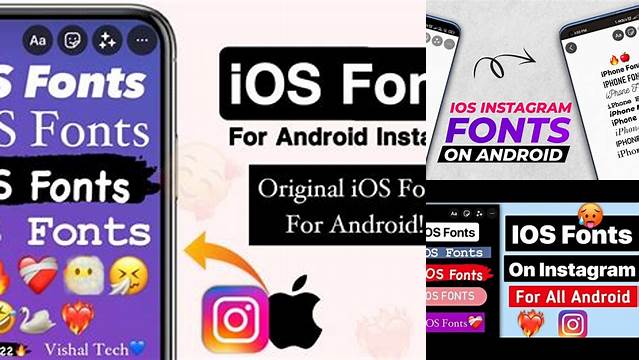
IOS Instagram Fonts: TTF Guide
Understanding iOS Instagram Fonts and TTF Files
Hey guys, ever scrolled through Instagram and wondered how some people get those super cool, unique fonts on their stories and posts? It’s like magic, right? Well, it’s not exactly magic, but it involves understanding how fonts work, especially when you’re trying to get creative on your iOS device. The main keyword here is iOS Instagram fonts TTF. We're going to dive deep into what that means, why it matters, and how you can leverage it to make your Instagram pop. TTF, or TrueType Font, is a common font format that’s been around for ages, developed by Apple and Microsoft. It’s pretty versatile and works across many platforms, including your iPhone and iPad. When we talk about iOS Instagram fonts TTF, we're essentially looking at ways to use or emulate specific TTF fonts within the Instagram app on your Apple devices. Instagram itself has a limited set of fonts you can use directly in the app. However, there are workarounds and methods to incorporate custom fonts, and understanding TTF is key to unlocking those possibilities. This guide will break down the jargon, explain the limitations, and show you the coolest ways to elevate your Instagram game with custom typography. So, buckle up, because we're about to make your feed look absolutely stunning!
Why Custom iOS Instagram Fonts Matter for Branding
Alright, let's talk branding, guys. If you’re running a business, a personal brand, or just trying to make a statement on Instagram, your visual identity is everything. And guess what? iOS Instagram fonts TTF play a surprisingly significant role in that. Think about your favorite brands; they often have a very distinct visual style, and their font choice is a huge part of that recognition. Using custom fonts that align with your brand’s personality can make your Instagram profile instantly recognizable and professional. It creates a cohesive look and feel across all your content, from your bio to your stories and feed posts. For example, a luxury brand might opt for elegant serif fonts, while a playful, quirky brand might go for something more stylized and handwritten. Instagram's native font options are pretty basic, and while they work, they don't always scream you. When you can integrate iOS Instagram fonts TTF options, you're essentially giving your brand a unique voice that stands out from the crowd. It’s about more than just aesthetics; it’s about communicating your brand's essence without saying a word. So, investing a little time in figuring out how to use custom fonts isn't just a vanity project; it’s a smart branding strategy that can help you connect more deeply with your audience and leave a lasting impression. Let’s get into how you can achieve this.
The Nuances of TTF Fonts on iOS for Instagram
So, we’ve established that TTF files are crucial for custom fonts, but how exactly do they work with iOS Instagram fonts TTF? It’s not as simple as just downloading a TTF file and expecting it to appear as an option within the Instagram app’s story editor. iOS has a specific way of handling fonts, and Instagram, being an app, largely relies on the system's font management. Generally, you can install TTF fonts on your iPhone or iPad, making them available system-wide. This means other apps can use them. However, Instagram’s story editor, or its text tools for posts, often has a curated list of fonts that the developers have chosen to include. This is a key limitation. What we're often doing when we talk about using custom fonts on Instagram is actually using a third-party app or a web-based tool to create text with our desired font, and then saving that as an image or sticker to upload to Instagram. The TTF file itself isn't directly selectable within the Instagram app’s text tool. Instead, you might use the TTF on your device to create graphics in another app, like Procreate or Canva, and then share those graphics to Instagram. Understanding this distinction is super important for managing expectations. We're not magically adding TTF options to Instagram's built-in editor, but rather using the TTF file as a building block in external tools to achieve the final look. This nuance is critical when you're aiming for specific iOS Instagram fonts TTF styles.
Leveraging Third-Party Apps for Custom iOS Instagram Fonts
Since Instagram’s built-in text tools are limited, the real magic for custom iOS Instagram fonts TTF often happens in third-party apps. These apps act as intermediaries, allowing you to use the TTF fonts you've installed on your device (or sometimes, fonts they provide) to create visually appealing text graphics. My favorites often include apps like Canva, Mojo, Over, or even specialized font apps. With an app like Canva, for instance, you can create a design, add text, and then choose from a vast library of fonts, including many TTF fonts you might have uploaded or installed. You design your text overlay, save it as an image, and then upload that image to your Instagram story or post. Mojo is fantastic for animated stories, offering cool templates where you can often swap in custom fonts. The key here is that these apps let you design with your chosen fonts. You’re not typing directly into Instagram; you're crafting your text elements externally. This gives you so much more control over the look and feel. You can adjust spacing, size, color, and apply effects, all while using your desired iOS Instagram fonts TTF. It's a bit more work than just typing, sure, but the results are professional and totally unique. Think of these apps as your personal design studio for Instagram. Experiment with a few different ones to see which interface you like best and which offers the features you need. This is where you truly bring your custom typography vision to life for your Instagram feed.
Using Instagram's Built-in Font Options Creatively
Okay, so while we're all about diving into custom iOS Instagram fonts TTF, let's not forget that Instagram does offer a few built-in font styles for stories. Sometimes, you can get pretty creative just by using these options smartly. Think of it as working within constraints. Instagram typically offers about 5-10 different font styles that rotate or change periodically. While they might not be TTF files you downloaded yourself, they each have a distinct personality. You’ve got your classic serifs, some bold sans-serifs, a typewriter-style font, and often a more stylized script or decorative one. The trick is to use them strategically. For instance, if you’re posting a quote, choose a font that matches the tone of the quote. A serious quote might look great in a classic serif, while a funny anecdote could pop in a more whimsical font. You can also play with text alignment, background colors, and text effects (like the shadow or outline options) to make these standard fonts stand out. Sometimes, combining two different built-in fonts within a single story slide can create visual interest. Don't underestimate the power of simple design principles: hierarchy, contrast, and repetition. Even with the limited palette of iOS Instagram fonts TTF options directly in the app, you can create engaging and visually appealing text. It’s about knowing how to pair them, how to size them, and how to place them effectively within your design. So, give these native options a fair shake before you completely bypass them; you might surprise yourself with what you can create!
The Role of Unicode Characters in Mimicking Custom Fonts
This is where things get a little sneaky, guys! Sometimes, when you see those really unique fonts on Instagram, they aren't actually TTF files being used directly. Instead, people are using special Unicode characters. Unicode is a standard that assigns a unique number (a code point) to every character, symbol, and emoji in virtually every writing system. There are